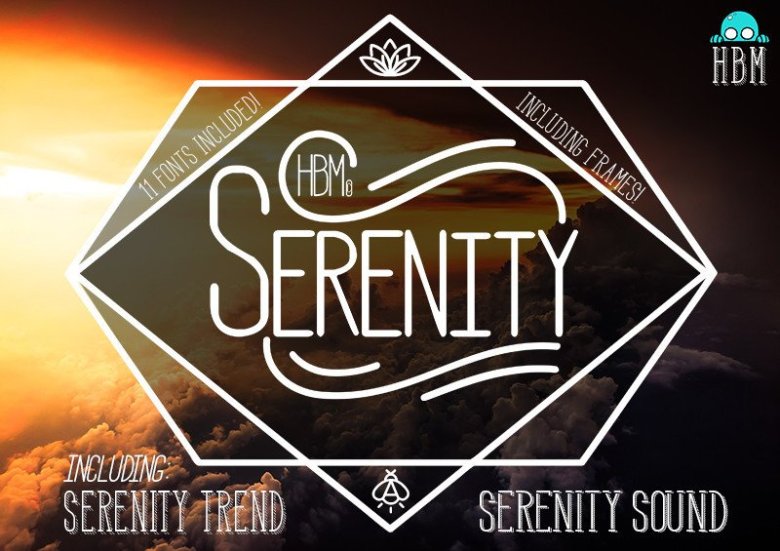
HBM Serenity Font Family
I want to introduce to you a fun font, is a font family with beautiful font. That is HBM Serenity Font Family! HBM Serenity designed by Here Be Monsters. This fun typeface boasts the features of a well-balanced, versatile, modern sans which is highly legible as a text font and with a clean, elegant look as a display font at larger sizes. It was created to be enjoyed, so enjoy creating with it!